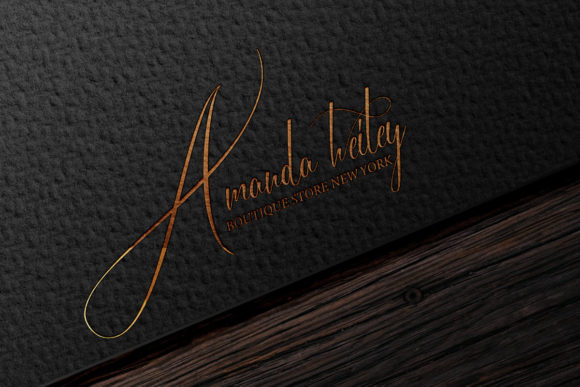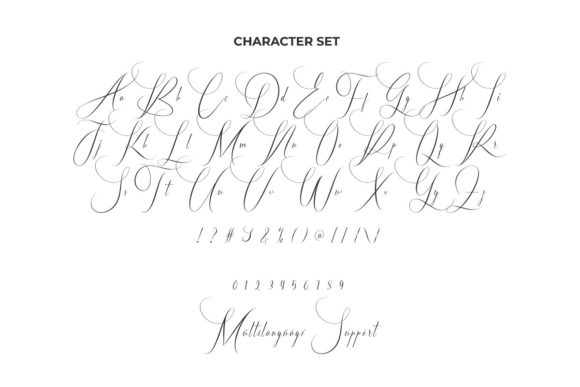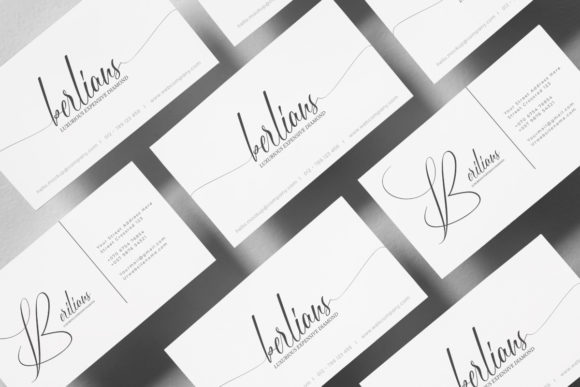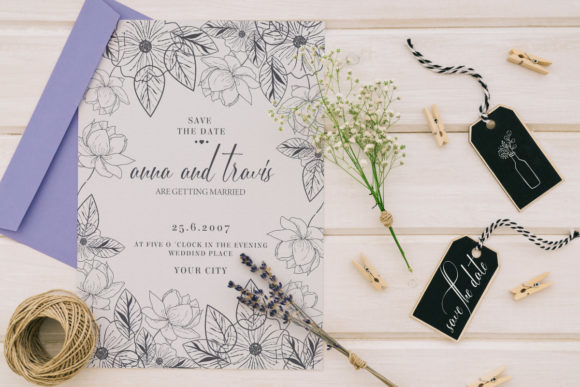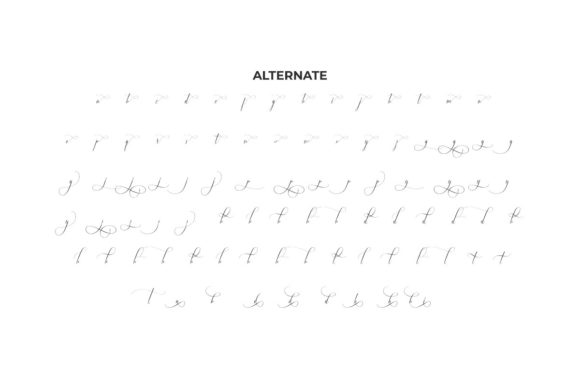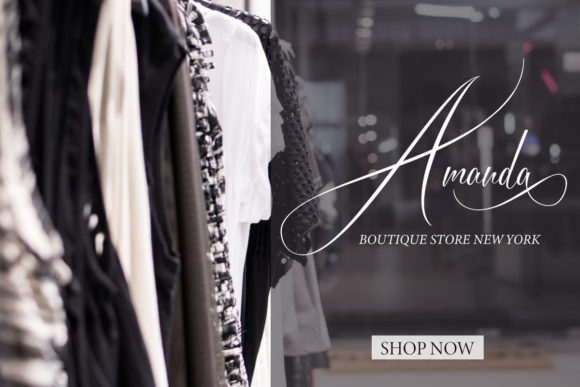
Diamond Flower Font: Elevate Your Designs with Elegance
Are you a designer or crafter looking for a font that exudes elegance and sophistication? Look no further than the stunning Diamond Flower Font. This slim and delicate script font is perfect for adding a touch of refinement to a wide range of design ideas. In this article, we’ll explore the features and benefits of Diamond Flower Font, and how it can elevate your designs to the next level.
What is Diamond Flower Font?
Diamond Flower Font is a beautiful script font that boasts a slim and delicate appearance. Its gentle curves and lines make it perfect for designs that require a touch of elegance and sophistication. Whether you’re working on a logo, branding materials, or craft projects, Diamond Flower Font is sure to impress.
Key Features of Diamond Flower Font
- PUA Encoded: Diamond Flower Font is PUA (Private Use Area) encoded, which means you can access all of the glyphs and swashes with ease. This feature makes it easy to customize your designs and add unique touches.
- Slim and Delicate: The font’s slim and delicate appearance makes it perfect for designs that require a touch of elegance and sophistication.
- Versatile: Diamond Flower Font can be used on a wide range of design ideas, from logos and branding materials to craft projects and more.
Benefits of Using Diamond Flower Font
So why choose Diamond Flower Font for your designs? Here are just a few benefits of using this stunning font:
- Elegant and Sophisticated: Diamond Flower Font adds a touch of elegance and sophistication to any design, making it perfect for high-end brands and luxury products.
- Easy to Use: The font’s PUA encoding makes it easy to access all of the glyphs and swashes, allowing you to customize your designs with ease.
- Versatile: Diamond Flower Font can be used on a wide range of design ideas, making it a great addition to any designer’s toolkit.
Design Ideas Using Diamond Flower Font
Diamond Flower Font is perfect for a wide range of design ideas, including:
- Logos and Branding Materials: Use Diamond Flower Font to create elegant and sophisticated logos and branding materials for high-end brands and luxury products.
- Craft Projects: Add a touch of elegance and sophistication to your craft projects, such as handmade cards, invitations, and scrapbooking pages.
- Wedding Designs: Use Diamond Flower Font to create beautiful wedding designs, such as invitations, programs, and stationery.
Tips for Using Diamond Flower Font
Here are a few tips for using Diamond Flower Font in your designs:
- Pair with Bold Fonts: Pair Diamond Flower Font with bold fonts to create a striking contrast and add visual interest to your designs.
- Experiment with Colors: Experiment with different colors and textures to add depth and dimension to your designs.
- Use Swashes and Glyphs: Take advantage of the font’s PUA encoding and use the swashes and glyphs to add unique touches to your designs.